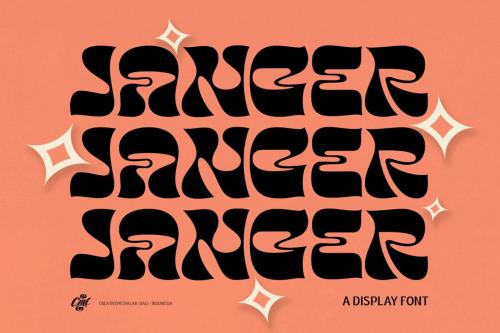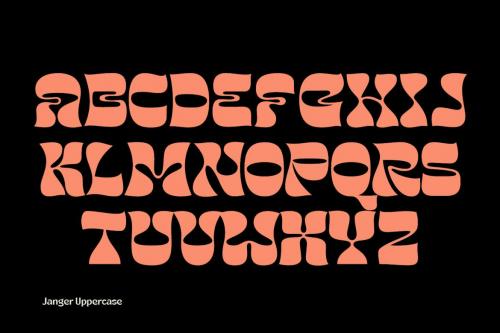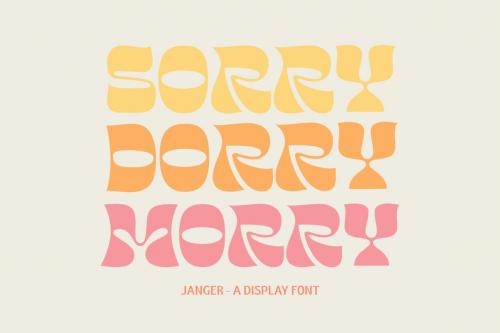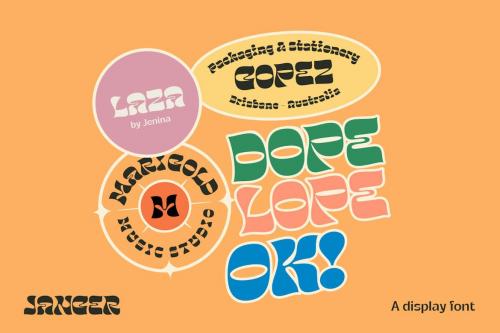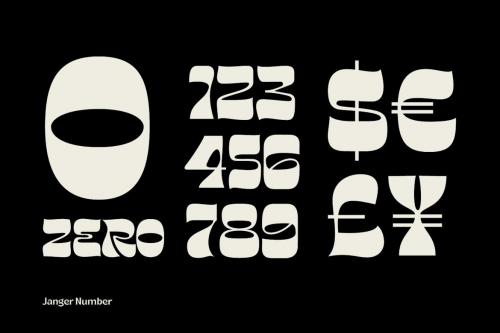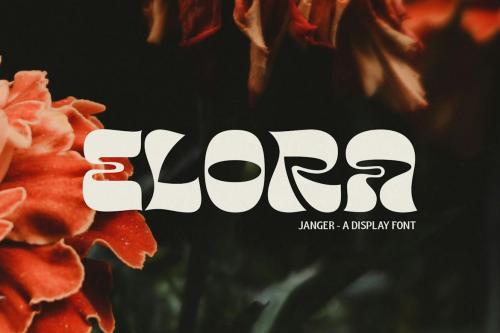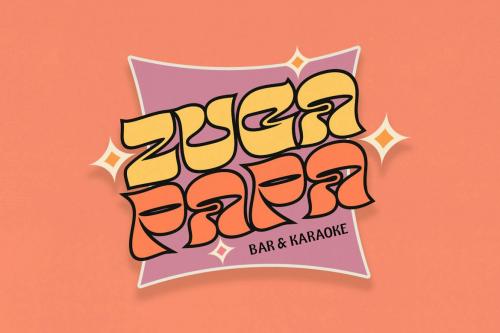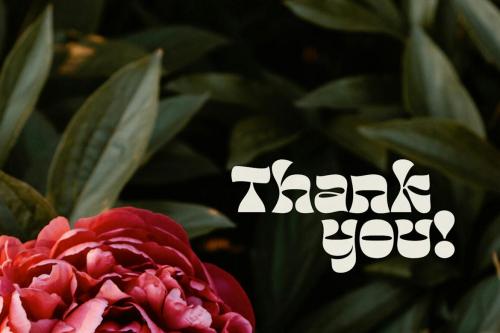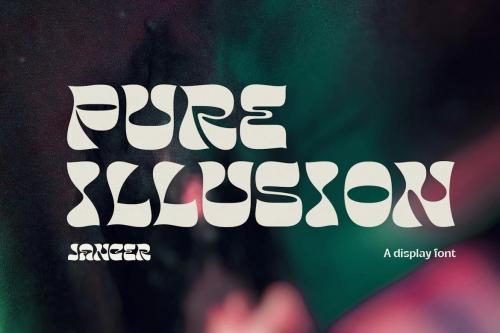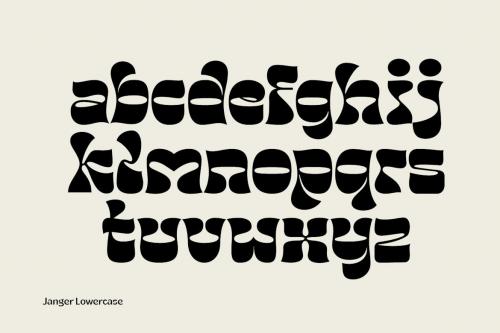
Janger - Display Font
Introducing **Janger**, a bold and fun display font. Janger features a reverse contrast style with a retro and psychedelic look that’s simply ideal for design such as posters, t-shirts, branding, logo and many more Janger - Display Font
Introducing **Janger**, a bold and fun display font.
Janger features a reverse contrast style with a retro and psychedelic look that’s simply ideal for design such as posters, t-shirts, branding, logo and many more